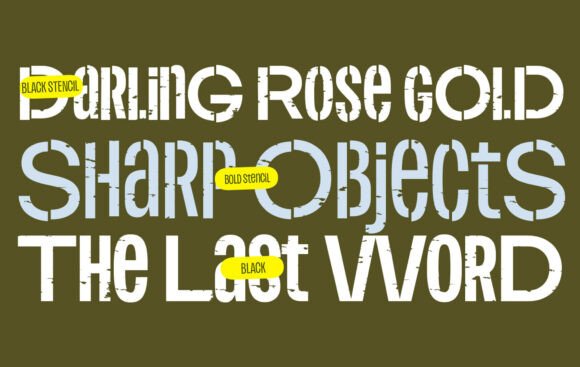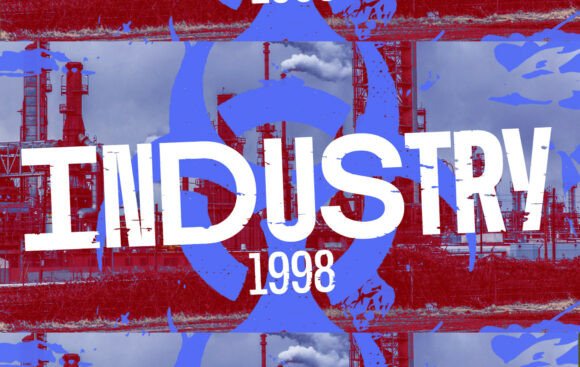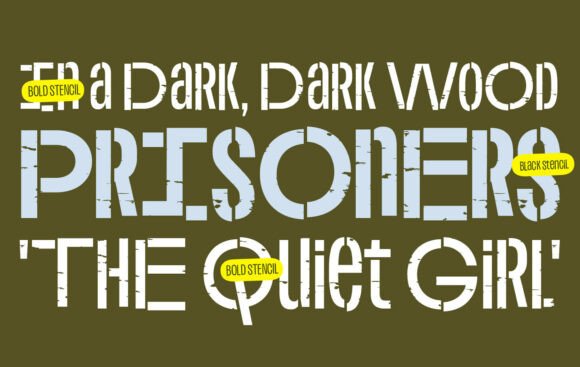
Introduction to Plex Oxide Font
Remember that moment when you’re brainstorming ideas for a creative project, and you stumble upon the perfect font to bring it all together? For designers, finding that elusive font can be a game-changer. It’s the difference between a mediocre design and one that truly stands out. For those who crave a bold, industrial look, the Plex Oxide Font is about to become your new go-to.
With its weathered, distressed texture and four font variations, the Plex Oxide Font is perfect for military-inspired designs, urban posters, video game titles, and underground branding projects. Whether you’re working on a design resource or a high-quality visual project, this font packs gritty energy and a strong visual punch that’s hard to ignore.
Plex Oxide Font
- Unique blend of modern and vintage elements, perfect for adding a touch of sophistication to any design.
- Transparent background, allowing for seamless integration with any design element.
- Designed with high-resolution graphics, suitable for use in print and digital applications.
- Includes a range of characters, including Latin, Cyrillic, and Greek alphabets, making it a versatile design resource.
- Perfect for use in branding, advertising, and editorial design, as well as digital projects such as web and mobile applications.
Honest Review: Plex Oxide Font
I recently stumbled upon the Plex Oxide Font, and I must say it’s a great addition to any designer’s toolkit. One of the things that stands out is its high quality and crisp design, making it perfect for creative projects that require a unique touch.
Here are some of the things that work well with the Plex Oxide Font:
- ✨ Unique design aesthetic that sets it apart from other fonts
- ✨ Works well with both light and dark backgrounds, including transparent backgrounds
- ⚠️ Limited character set, which may not be ideal for projects that require a wide range of characters
- ⚠️ Not suitable for small font sizes, as it may become difficult to read
Overall, I’m quite impressed with the Plex Oxide Font. Its unique design and high quality make it a valuable resource for designers working on creative projects. While it may have some limitations, it’s definitely worth considering for your next design project.
Tips for Getting the Most Out of Plex Oxide Font
To get the most out of the Plex Oxide Font, use it with a transparent background to create a unique and eye-catching design. Experiment with different font sizes and colors to add depth and visual interest to your project.
The Plex Oxide Font is perfect for creative projects such as branding, marketing materials, and social media graphics. It’s also great for use in presentations, documents, and web designs that require a modern and sleek look.